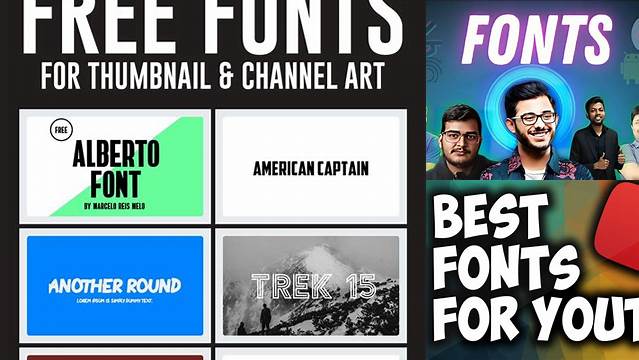
Cool Fonts For YouTube: Make Your Videos Pop!
Hey guys! Are you looking to spice up your YouTube videos and make them visually appealing? One of the easiest ways to do that is by using fun and engaging fonts. Fonts play a crucial role in setting the tone and grabbing your audience's attention. Let's dive into the world of fonts and explore some awesome options for your YouTube videos.
Why Fonts Matter for YouTube Videos
Before we jump into specific fonts, let's quickly chat about why fonts are so important for your YouTube content. Think about it: your video's thumbnail, intro, outro, and lower thirds all rely on text. The font you choose can significantly impact how viewers perceive your brand and your content.
- First impressions matter: The font you use in your thumbnail is often the first thing viewers see. A catchy font can pique their interest and make them want to click.
- Setting the tone: Fonts have personalities! A playful font can make your content feel lighthearted and fun, while a bold, modern font can convey professionalism and authority. Matching your font to your video's theme is key.
- Readability is crucial: No matter how cool a font looks, it needs to be readable. If your audience can't easily read your text, they'll likely tune out. Opt for fonts that are clear and legible, even at smaller sizes.
- Brand consistency: Using the same fonts across all your videos helps build brand recognition. Viewers will start to associate that font with your channel, making your content instantly identifiable.
- Emotional connection: Certain fonts evoke specific emotions. A script font might feel elegant and romantic, while a sans-serif font can feel clean and modern. Use fonts to subtly influence your viewers' feelings.
Choosing the right font is like picking the perfect outfit for a special occasion. It enhances the overall presentation and makes a lasting impression. So, let's get into some specific font categories and examples you can use in your YouTube videos!
Font Categories to Explore for YouTube
To make things easier, let's break down fonts into some broad categories. This will give you a better idea of the different styles available and how they might fit your content.
1. Sans-Serif Fonts: Clean and Modern
Sans-serif fonts are your go-to choice for a clean, modern, and minimalist look. They lack the small decorative strokes (serifs) that you see in other font styles, giving them a sleek and straightforward appearance. These fonts are super versatile and work well for a variety of video styles, from tech reviews to educational content. They're also highly readable on screens, making them perfect for YouTube.
When you're aiming for a modern and clean aesthetic in your YouTube videos, sans-serif fonts are an excellent starting point. These fonts are known for their simplicity and readability, making them ideal for various applications, from thumbnails to lower thirds and end screens. The absence of serifs (the small decorative strokes at the end of letterforms) gives sans-serif fonts a streamlined appearance, which translates well on screens. For example, channels that focus on technology reviews often use sans-serif fonts to convey a sense of innovation and clarity. Educational content creators may also find these fonts beneficial, as their legibility helps viewers absorb information more effectively. Moreover, the versatility of sans-serif fonts means they can be easily incorporated into different design styles without clashing, ensuring that your video’s text complements the overall visual presentation. By selecting the right sans-serif font, you can enhance the professionalism and clarity of your YouTube channel, making it more appealing to your audience and boosting viewer engagement. Remember, a font that is both stylish and easy to read can make a significant difference in how your content is perceived and understood.
Popular Sans-Serif Options:
- Helvetica: A classic sans-serif font that's super clean and readable. It's a safe bet for almost any type of video.
- Arial: Another widely used sans-serif font, similar to Helvetica but with slightly softer edges. Great for a friendly and approachable vibe.
- Roboto: A modern and versatile font that Google uses across its products. It's clean, geometric, and highly readable, making it perfect for YouTube.
- Open Sans: Designed with readability in mind, Open Sans is a great choice for longer text blocks. It's neutral and easy on the eyes.
- Montserrat: A geometric sans-serif font with a modern feel. It comes in a variety of weights, giving you plenty of options.
2. Serif Fonts: Classic and Elegant
Serif fonts have those little decorative strokes (serifs) at the ends of the letters. They tend to give off a classic, elegant, and sometimes more formal vibe. Think of serif fonts as the suits and ties of the font world. While they might not be the best choice for every video, they can add a touch of sophistication to certain types of content, like documentaries, historical videos, or even cooking tutorials.
When aiming for a classic and elegant touch in your YouTube videos, serif fonts are an ideal choice. These fonts, characterized by the small decorative strokes (serifs) at the ends of the letters, evoke a sense of tradition and sophistication. While they might not be the perfect fit for every type of content, serif fonts can significantly enhance videos that require a touch of formality or historical depth. For instance, documentaries or educational videos that delve into historical topics often benefit from the use of serif fonts, as they lend an air of authority and credibility to the presentation. Similarly, cooking tutorials can use serif fonts to create a sense of culinary artistry and refinement. Choosing the right serif font involves considering factors such as readability and the overall tone of your video. Fonts like Times New Roman or Georgia, while classic, might not always be the most visually appealing on screen. Instead, exploring options like Playfair Display or Merriweather can provide a more contemporary yet elegant feel. By carefully selecting a serif font, you can elevate the visual appeal of your YouTube content, making it more engaging and memorable for your audience. The key is to balance style with legibility, ensuring that your text complements the video’s theme without sacrificing clarity.
Popular Serif Options:
- Times New Roman: A classic serif font, but maybe a bit overused. It's readable but can feel a little dated.
- Georgia: A more modern serif font that's designed for screen readability. It has a warm and friendly feel.
- Playfair Display: An elegant serif font that's great for headings and titles. It has a sophisticated and stylish look.
- Merriweather: A readable serif font that's designed for on-screen use. It's a good option for longer text blocks.
- Lora: A well-balanced serif font with a contemporary feel. It works well for both headings and body text.
3. Script Fonts: Stylish and Creative
Script fonts are designed to mimic handwriting. They're stylish, creative, and can add a personal touch to your videos. However, they can also be tricky to use because they're not always the most readable. Save script fonts for shorter text elements like logos, titles, or lower thirds where you want to make a statement. Think carefully about readability when using script fonts.
Script fonts are a fantastic option for adding a stylish and creative flair to your YouTube videos, particularly when used thoughtfully and sparingly. These fonts, which mimic the fluidity and elegance of handwriting, can bring a personal and artistic touch to your content. They are especially effective for creating memorable logos, eye-catching titles, or distinctive lower thirds. However, it’s crucial to balance the aesthetic appeal of script fonts with their readability. Due to their intricate designs and flowing strokes, script fonts can sometimes be challenging to read, especially at smaller sizes or in lengthy text blocks. Therefore, it's often best to reserve them for shorter text elements where they can make a significant impact without sacrificing clarity. When selecting a script font, consider the overall tone and theme of your video. A playful, informal script might be perfect for a vlog or lifestyle channel, while a more formal script could enhance the sophistication of a wedding or fashion video. Popular script fonts like Brush Script MT or Pacifico can add a touch of personality, but always ensure that your audience can easily understand the message you’re conveying. By using script fonts strategically, you can elevate the visual appeal of your YouTube videos, making them more engaging and memorable for your viewers.
Popular Script Options:
- Pacifico: A fun and friendly script font that's popular for logos and titles. It has a retro, hand-lettered vibe.
- Brush Script MT: A classic script font with bold strokes. It's great for making a strong statement.
- Lobster: A condensed script font that's perfect for headlines. It has a vintage, diner-style feel.
- Great Vibes: An elegant script font that's perfect for wedding videos or other special occasions. It has a romantic and flowing style.
- Dancing Script: A playful script font with bouncy letters. It's great for creating a lighthearted and fun vibe.
4. Display Fonts: Bold and Unique
Display fonts are designed to be eye-catching and attention-grabbing. They come in a wide variety of styles, from futuristic to retro, and are perfect for making a statement in your thumbnails or titles. Display fonts are not typically used for body text because they can be difficult to read in large blocks, but they're excellent for adding personality and visual interest to shorter text elements. These are the fonts you use when you want to make an impact.
Display fonts are the go-to choice for making a bold and unique statement in your YouTube videos. These fonts are specifically designed to be eye-catching and attention-grabbing, making them perfect for thumbnails, titles, and other short text elements where you want to leave a lasting impression. Available in a wide array of styles, from futuristic and geometric to retro and whimsical, display fonts allow you to inject personality and visual interest into your content. They are not typically used for body text, as their distinctive designs can sometimes hinder readability in large blocks. However, when used strategically, display fonts can significantly enhance the visual appeal of your videos, helping you to stand out in the crowded landscape of YouTube. When selecting a display font, consider the overall tone and theme of your channel and the specific video. A futuristic font might be ideal for a tech review, while a retro font could perfectly complement a vintage-themed vlog. Popular display font options include Bebas Neue for its clean, tall lines, or Luckiest Guy for its bold, cartoonish appeal. Experiment with different styles to find the perfect match for your content. By incorporating display fonts effectively, you can create a strong visual identity for your channel, making it more memorable and engaging for your audience.
Popular Display Options:
- Bebas Neue: A tall and clean sans-serif font that's great for headlines. It has a modern and impactful look.
- Luckiest Guy: A bold and cartoonish font that's perfect for playful content. It has a fun and energetic vibe.
- Oswald: A condensed sans-serif font that's great for headlines and titles. It has a modern and professional feel.
- Anton: A bold and impactful sans-serif font that's perfect for making a statement. It has a strong and assertive look.
- Permanent Marker: A handwritten-style font that's great for adding a personal touch. It has a casual and informal vibe.
Tips for Choosing the Right Fonts
Okay, now that we've explored some font categories, let's talk about how to actually choose the right fonts for your videos. Here are a few tips to keep in mind:
- Consider Your Brand: Your fonts should align with your brand's personality and style. Are you going for a professional and authoritative vibe, or a fun and quirky one? Choose fonts that reflect your brand's identity.
- Think About Readability: As we've mentioned, readability is key. Make sure your fonts are easy to read, even at smaller sizes. Avoid overly decorative or complicated fonts for longer text blocks.
- Limit Your Font Choices: Don't go overboard with too many different fonts. Stick to a maximum of two or three fonts per video to maintain a cohesive look. A good rule of thumb is to use one font for headings and another for body text.
- Use Font Pairing: Font pairing is the art of combining different fonts that complement each other. A classic pairing is a sans-serif font for headings and a serif font for body text, or vice versa. There are tons of resources online that offer font pairing suggestions.
- Test Your Fonts: Always test your fonts on different devices and screens to make sure they look good across the board. What looks great on your computer might not translate well to a mobile device.
- Check Licensing: Some fonts are free for personal use but require a license for commercial use (like on YouTube). Make sure you have the necessary permissions before using a font in your videos.
Where to Find Fun Fonts for YouTube
So, where can you find these awesome fonts? Here are a few of my favorite resources:
- Google Fonts: Google Fonts is a fantastic resource for free, high-quality fonts that are perfect for the web and video. They have a huge selection of sans-serif, serif, script, and display fonts to choose from.
- Adobe Fonts: If you have an Adobe Creative Cloud subscription, you have access to Adobe Fonts, which offers a vast library of professional-grade fonts.
- DaFont: DaFont is a popular website with a huge collection of free fonts. Just be sure to check the licensing terms before using a font in your videos.
- Font Squirrel: Font Squirrel offers a selection of free, commercial-use fonts. They also have a font identifier tool that can help you find fonts similar to ones you like.
- Creative Market: Creative Market is a marketplace where you can buy fonts, graphics, and other design assets. They often have unique and stylish fonts that you won't find anywhere else.
Choosing the right fonts for your YouTube videos can make a huge difference in how your content is perceived. By using fun, engaging, and readable fonts, you can grab your audience's attention, set the tone for your videos, and create a strong brand identity. So, go ahead and experiment with different fonts and find the perfect ones to elevate your YouTube channel! Happy creating, guys!